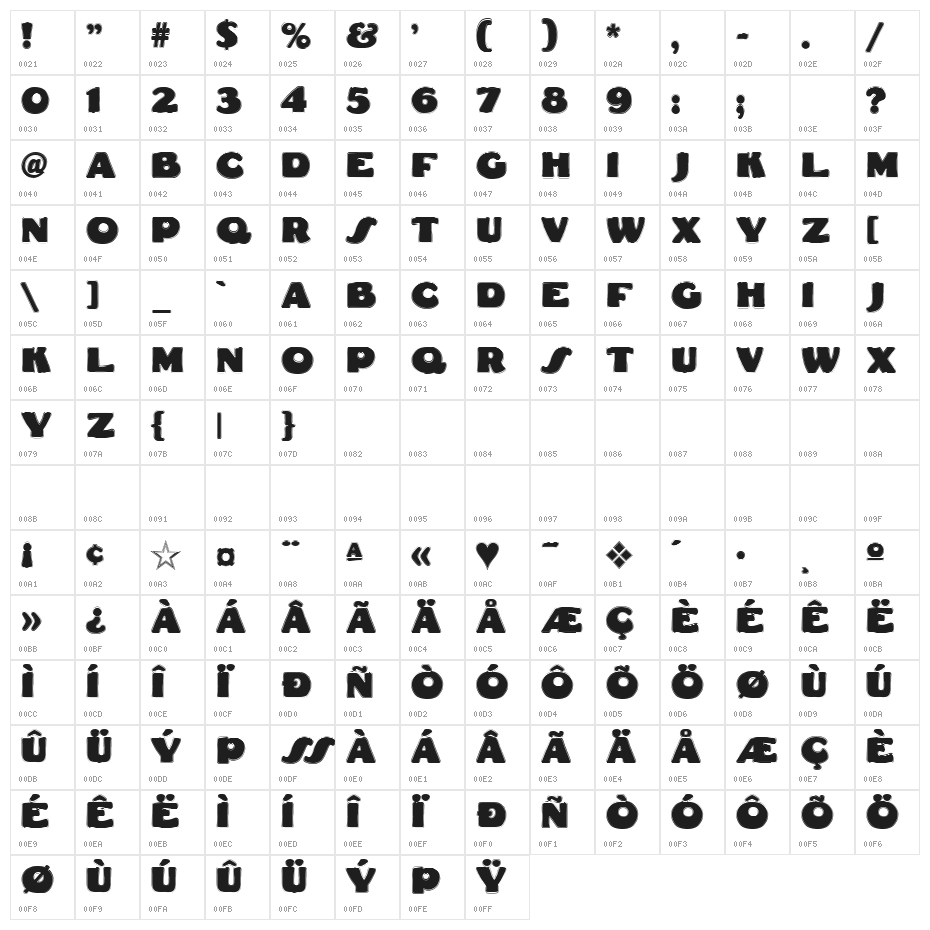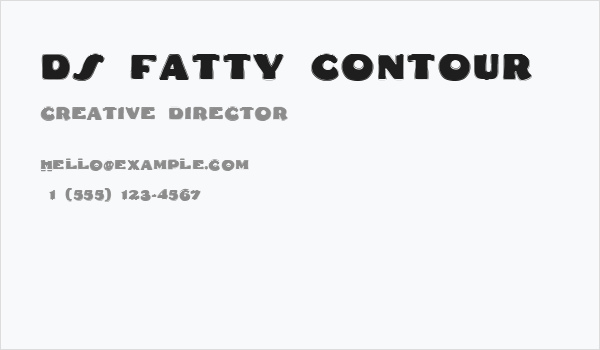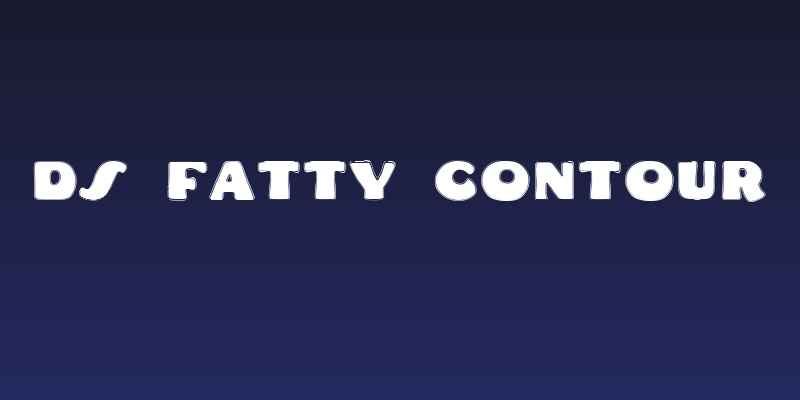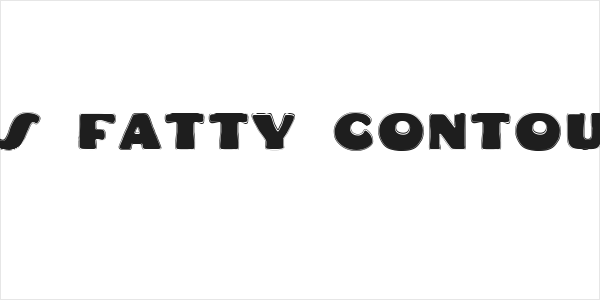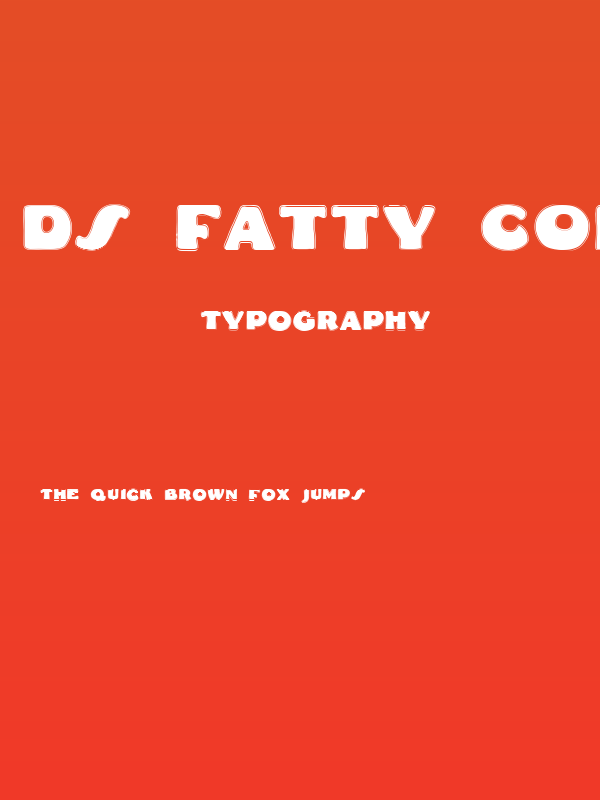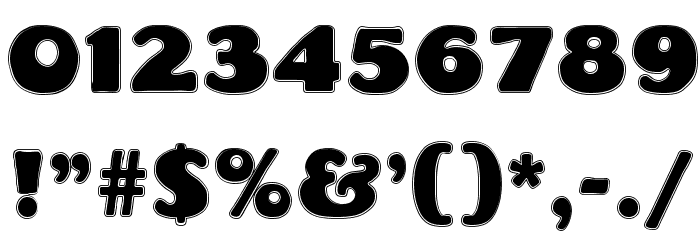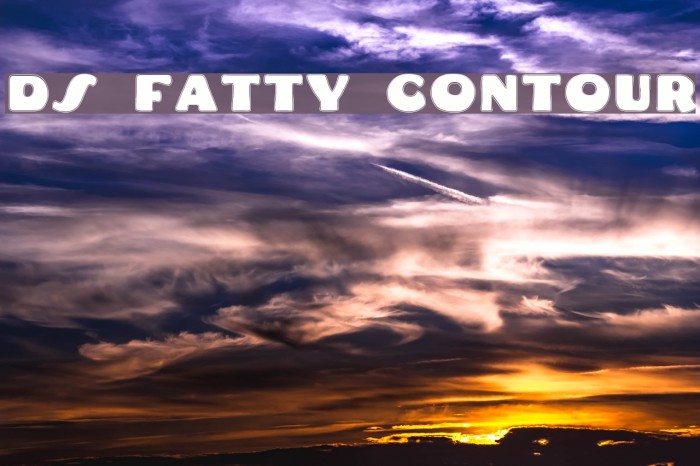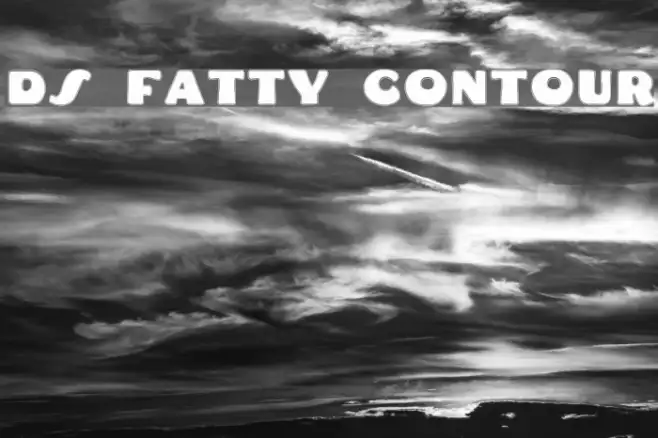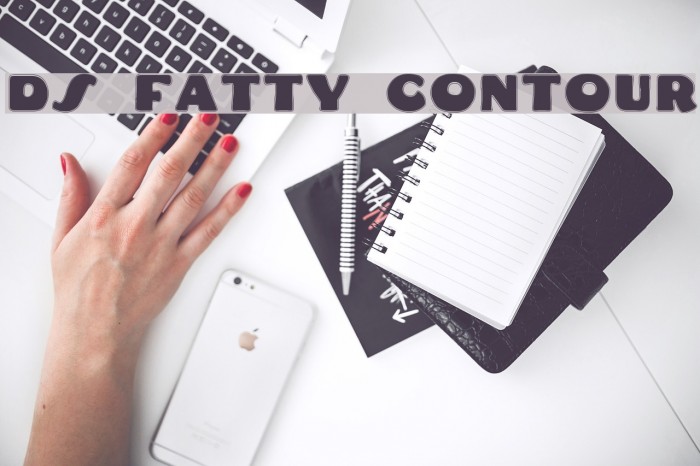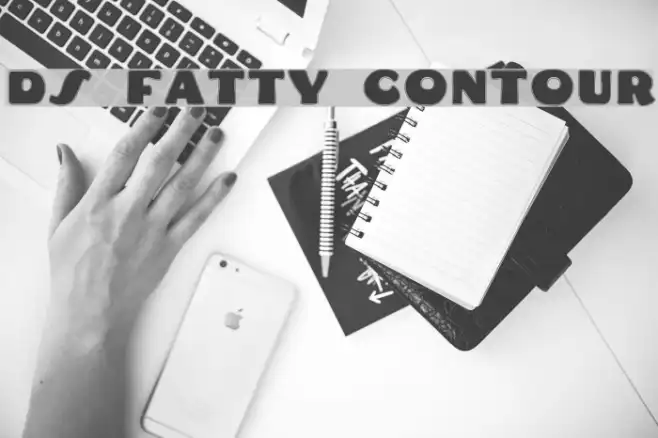
DS Fatty Contour Font
DS Fatty Contour Description
This font features bold, rounded characters with a playful and chunky appearance. The letters are heavily contoured, giving them a three-dimensional effect that stands out prominently. The style is consistent across uppercase, lowercase, and numerical characters, maintaining a sense of cohesion and uniformity. The special characters are equally bold, ensuring they match the overall aesthetic. The font's design is eye-catching and ideal for projects that require a strong visual impact.
| Overall Style | Playful, Modern |
| Proposed Projects | Ideal for posters, logos, children's books, and any design requiring a fun, bold statement. |